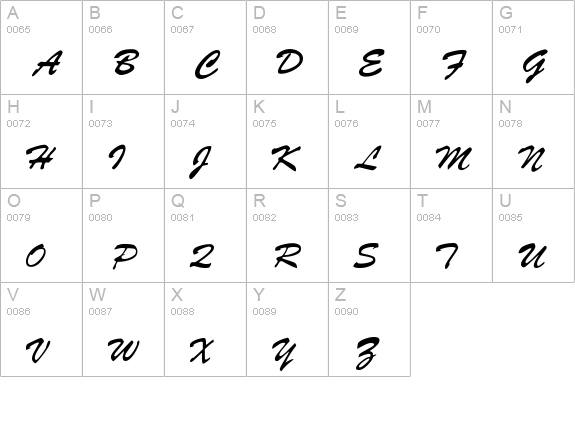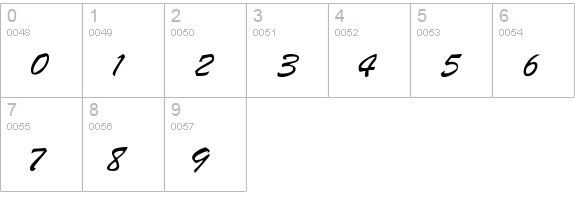
Introducing the unique and captivating Style.fog font! This modern and elegant typeface is sure to make your designs stand out with its sleek and stylish appearance. The flowing lines and intricate details of Style.fog add a touch of sophistication to any project, whether it's for branding, advertising, or creative endeavors. Best of all, Style.fog is completely free to download at FontsMarket.com! That's right, this stunning font is readily available for you to use in your personal and commercial projects without any cost. So why wait? Give your designs a touch of class and download Style.fog today!